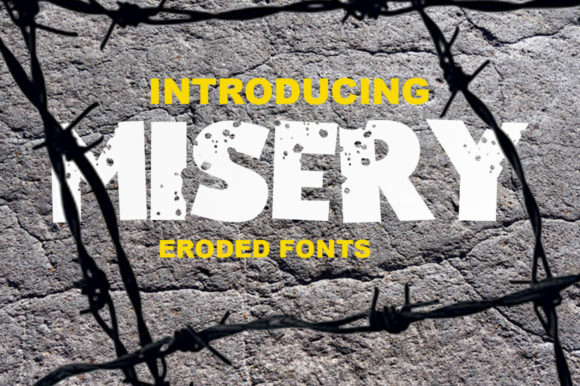
Introducing Misery Font, the captivating display font that will ignite your creativity! Crafted by the skilled hands of azkaryzki, Misery boasts a bold and rugged texture that exudes raw power and edgy charm. It's the perfect choice for those seeking a font that commands attention and makes a lasting impression.
Unleash the potential of Misery Font in your web designs, where it will elevate your text to new heights of visual impact. Create business cards that radiate confidence and professionalism, leaving an unforgettable mark on potential clients. Let your imagination soar as you explore the endless possibilities that await with Misery Font, the ultimate tool for expressing your unique style.
But why settle for ordinary when you can embrace the extraordinary? Misery Font is not just a collection of glyphs; it's an invitation to embark on a creative journey, to break free from the mundane and forge your own path. Let its rugged texture inspire you, let its boldness empower you, and let its versatility unleash the limitless potential within your designs.
With Misery Font, your words will dance off the screen, captivating audiences with their raw energy and magnetic charm. It's a font that will make your message unforgettable, leaving an indelible mark on the minds of those who encounter it.
So, if you're seeking a font that will ignite your creativity, spark your imagination, and leave a lasting impression, look no further than Misery Font. Let its bold and rugged texture elevate your designs to new heights of excellence. Embrace the power of Misery Font today and embark on a creative journey that will redefine your artistic horizons.